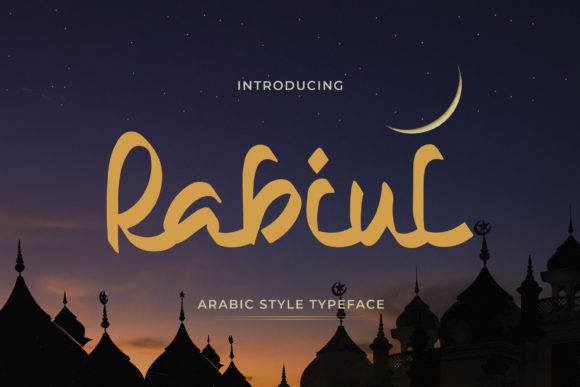
Prepare your eyes for a mesmerizing visual voyage as you encounter Rabiul Font, a display font that embodies the mysticism of the Middle Eastern culture. Step into a world of enchanting beauty, where words dance in harmonious unity, captivating your audience with a timeless allure.
Crafted with meticulous attention to detail, Rabiul Font is an ode to the rich heritage of Islamic calligraphy. Its intricate strokes and elegant curves evoke the artistry of ancient scribes, transporting you to a realm where words possess an ethereal, almost magical quality.
Designed with versatility in mind, Rabiul Font effortlessly adapts to a myriad of creative pursuits. Whether you seek to craft captivating logos that leave an indelible impression, evoke the spirit of Ramadan with your designs, or embark on any project that calls for a touch of cultural authenticity, Rabiul Font is your trusted companion.
Unleash your creativity and let Rabiul Font guide you on a journey of self-expression. Design marketing materials that resonate with your audience, leaving them spellbound by the allure of your message. Craft social media posts that capture attention, leaving an indelible mark on the digital landscape. Create invitations and greeting cards that exude elegance and charm, forever etched in the memories of your cherished recipients.
Immerse yourself in the beauty of Rabiul Font and let its poetic essence elevate your projects to new heights. Seize the opportunity to stand out from the crowd, to captivate your audience, and to leave a lasting impression that lingers long after the final page is turned.